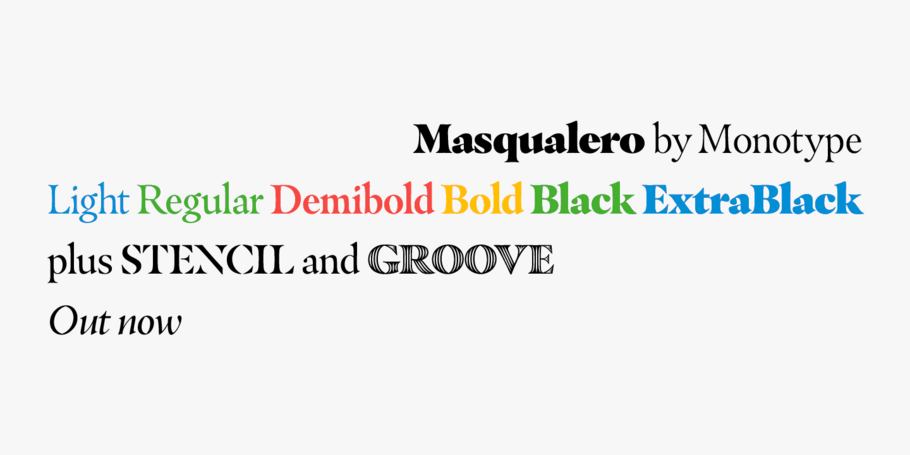
Masqualero™
Jouez entre les lignes.
Inside a small car in a white-out snowstorm, somewhere on Route 14 from Chicago into Wisconsin, Miles Davis is blowing from the speakers: a loose, snaking, searching tune of ebbs and flows and magical interactions, open to possibilities. The driver, weary from his early morning white-knuckle ride, pulls over and listens. He hits repeat. As he gazes into the blizzard, a word takes shape in his mind, in letters bold and sculptural: ‘Masqualero’.
Years after Jim Ford finally made it home and sketched out the word for the first time, his magnum opus is with us. Masqualero is a tribute to Miles Davis in letterforms that are as enigmatic and complex as the so-called Prince of Darkness himself and the 1967 composition whose name they share. Cool, contradictory, still, restless, dark and flamboyant, illuminated by scintillating serifs and brilliant corners.
‘I approached drawing the letters as if they were marble sculptures,’ says Ford. ‘Many sharp, black, modern sculptures filling a large park … I was aiming for the highest level of detail, quality and sophistication that I could make, as if it really was for Miles.’ Masqualero, he adds, is ‘for the finer things. It dresses up words. It’s the black tuxedo or stiletto heel’.
Jim Ford is a visual artist and designer from Chicago. Jim works predominantly in type design, but includes custom lettering, art and illustration in his growing portfolio. He has designed custom typefaces for agencies, corporations, publishers, software and hard- ware manufacturers, video games, devices, you name it! In addition to customer-driven work, Jim also has a wealth of original typeface designs, ranging from traditional text faces to innovative display lettering.